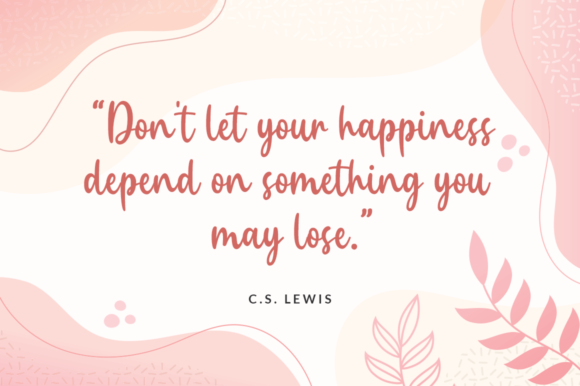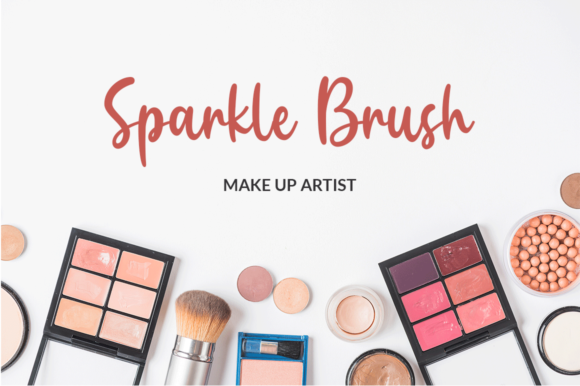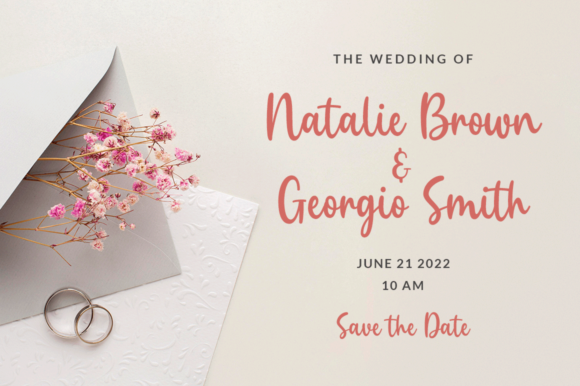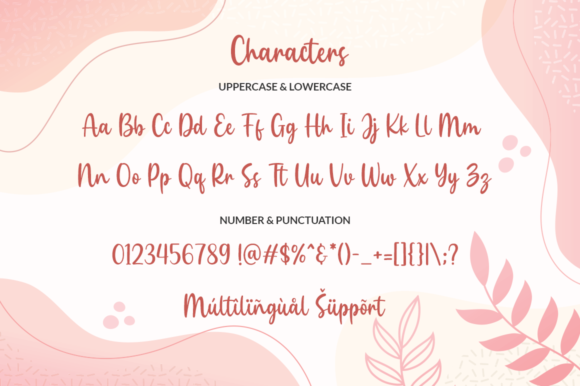
Introduction to Scarlet Heart Font
Scarlet Heart is a lovely handwritten font.
It is perfect for logos, branding, and quotes This font reads as strong, confident, and dynamic and can add tons of stylish character to your designs.